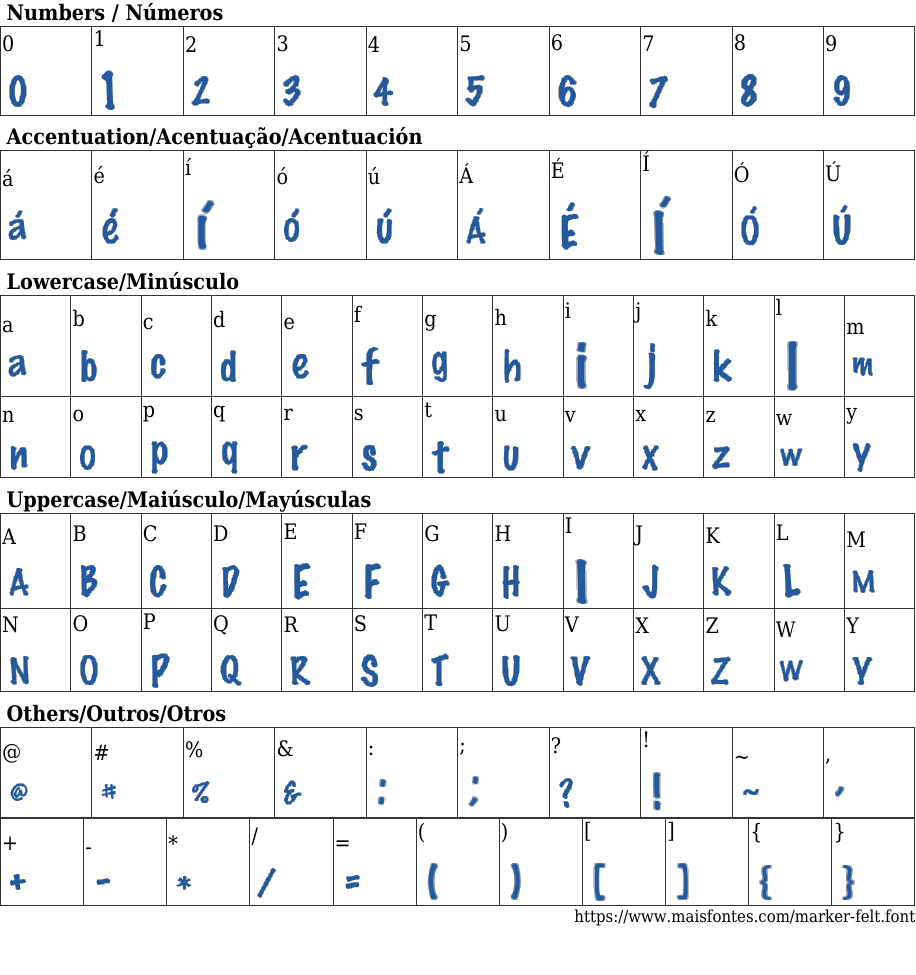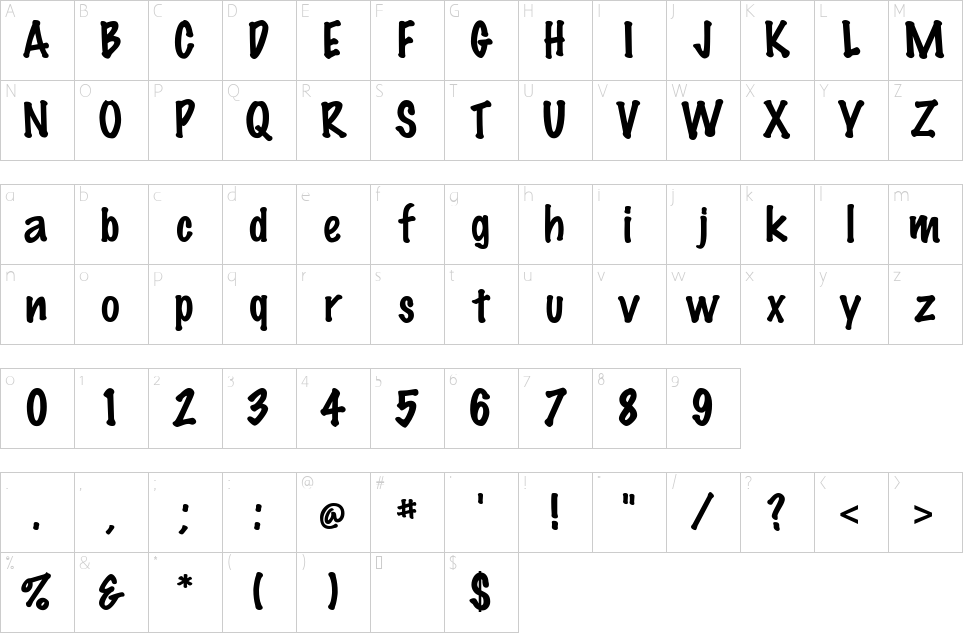
Felt Marker Font - Since its release, it has quickly gained in popularity. ️ this font has been downloaded 30,000+ times. Download and install the marker felt font for free from ffonts.net. Marker felt is an elegant handwritten font family with legible bold fonts and numbers.